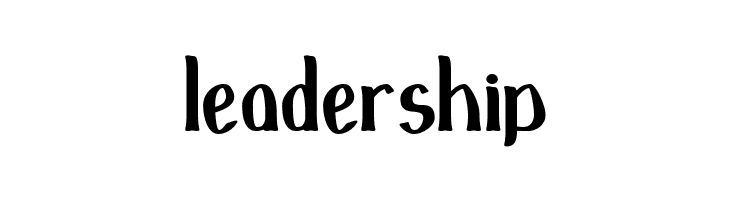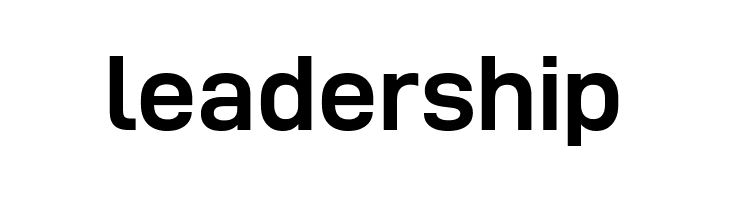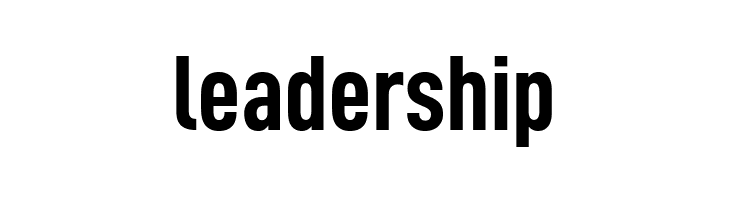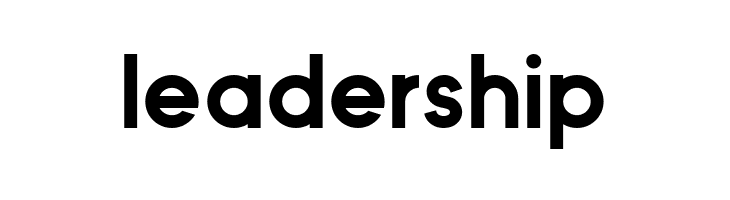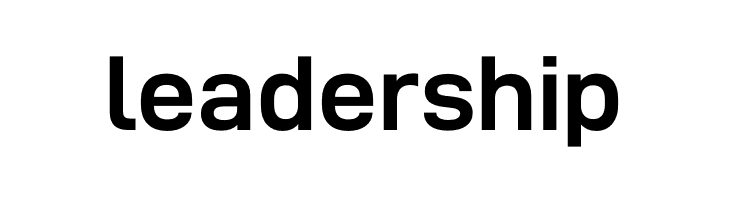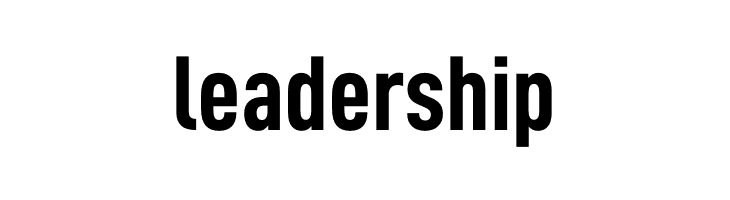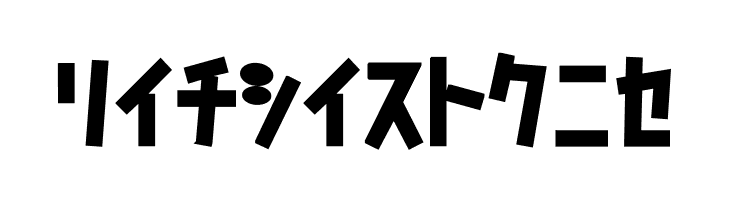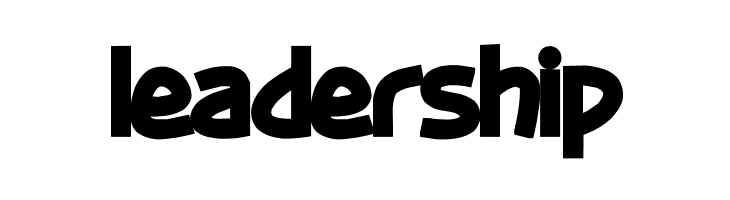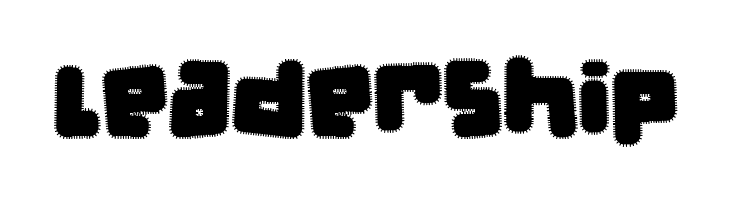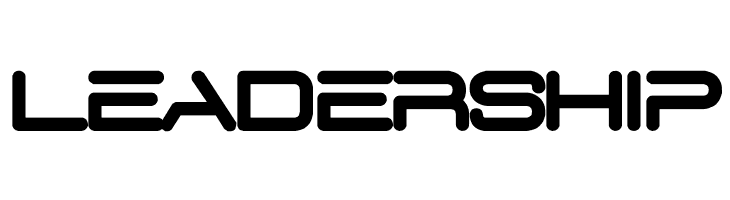
A bold, futuristic font with geometric shapes and sharp angles.
A bold, italicized font with a futuristic, angular design.
A bold, futuristic font with a condensed and geometric style.
A futuristic, bold, and italicized font with a condensed design, ideal for tech and modern projects.
A bold, modern font with geometric and uniform strokes.
A bold, italic, and modern font with a futuristic and dynamic style.
A bold, geometric font with a playful and modern aesthetic.
A bold, italic font with dynamic strokes and a confident appearance.
A bold, classic serif font with sharp serifs and medium contrast.
A bold, modern font with clean lines and geometric structure.
A bold, medieval-inspired font with sharp serifs and a gothic influence.
A bold, italicized font with a calligraphic and dynamic style.
A bold, playful font with a hand-drawn aesthetic and varying line thickness.
A bold, oblique font with a dynamic and elegant style.
A bold, modern sans-serif font with a geometric structure and excellent readability.
A bold, condensed sans-serif font with a modern and structured appearance.
A bold, condensed font with a modern and geometric style.
A bold, modern sans-serif font with expanded width and clean lines.
A bold, modern sans-serif font with geometric precision and excellent readability.
A bold, dynamic font with unique curves and artistic flair.
A bold, dynamic font with a playful and adventurous style.
A bold, rounded font with a playful, retro style and thick outlines.
A bold, geometric font with a playful, modern aesthetic and retro-futuristic flair.
A futuristic, geometric font with rounded edges and consistent stroke width.
A bold, italicized font with a futuristic and geometric design.